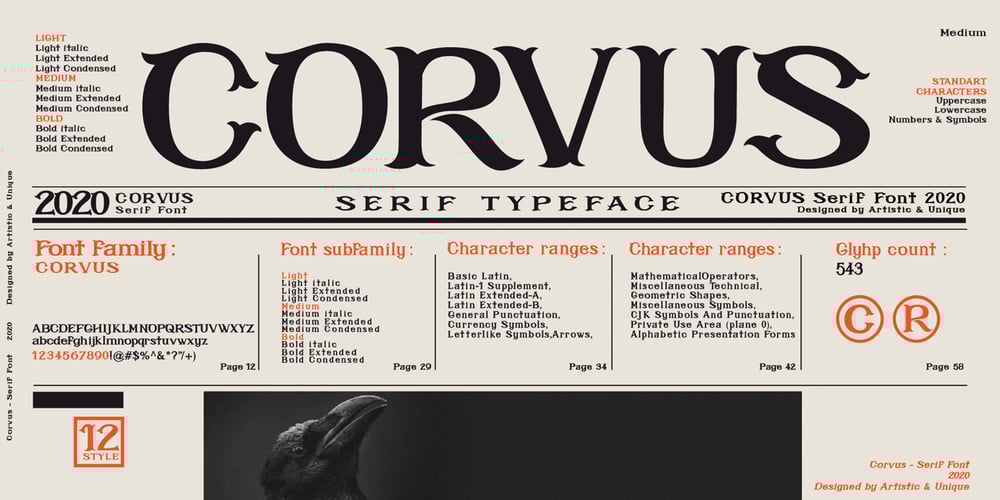
Corvus
Corvus font
Corvus Font Family was designed by Osman Taner Kucukgenc and published by Artisticandunique. Corvus contains 12 styles and family package options. Corvus is a display serif font family, stylized with elegant soft turns that soften the sharp ends. Due to its structure, this font can meet your needs in all your modern or classic creative projects.Corvus is ideal for creating your creative projects on similar subjects with its gloomy and Modern Gothic stance.Absolutely perfect for titles, magazines, books, invitations, logos, packaging design, branding and more!Character Ranges:Basic Latin, Latin-1 Supplement, Latin Extended-A, Latin Extended-B, General Punctuation, Currency Symbols, Letter like Symbols,Arrows,Mathematical Operators,Miscellaneous Technical, Geometric Shapes, Miscellaneous Symbols, CJK Symbols And Punctuation, Private Use Area (plane 0), Alphabetic Presentation FormsUppercase typefaceLowercase typefaceNumbersSymbolsMultilingualWith this font you can create your unique designs. If you have a question, please contact me.Have a good time.